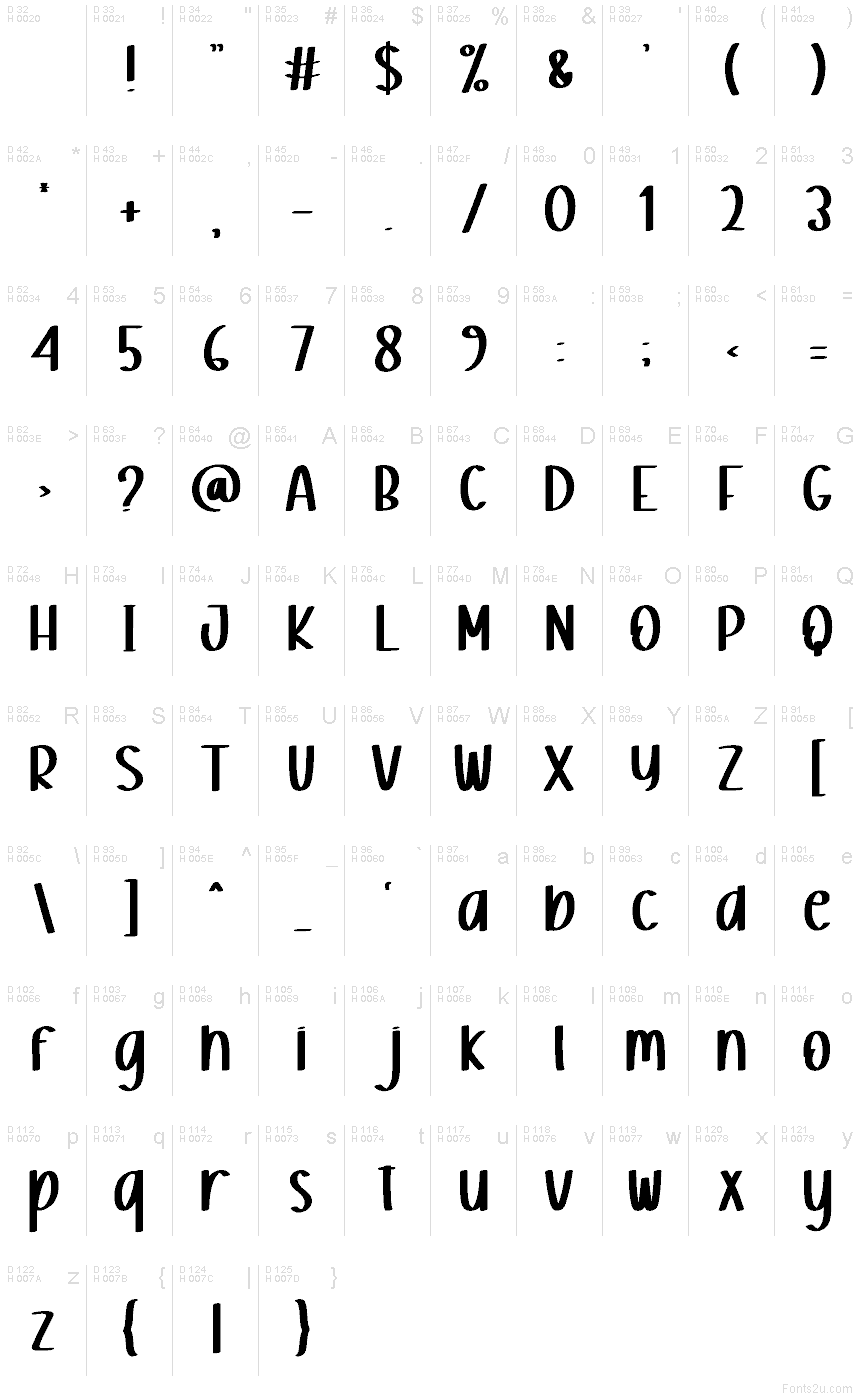
Sweety Milkys
Sweety Milkys font, a playful handwritten typeface by Andi Moz, brings a whimsical and friendly charm to your projects. With its modern casual feel, this visually engaging font is both approachable and stylish, making it perfect for adding a unique touch to your designs.
Explore this free handwritten font in book covers, quotes, packaging design, posters and flyets. It’ll also work great in invitation cards, video titling or any other type of playful branding material that can benefit from a human feel!